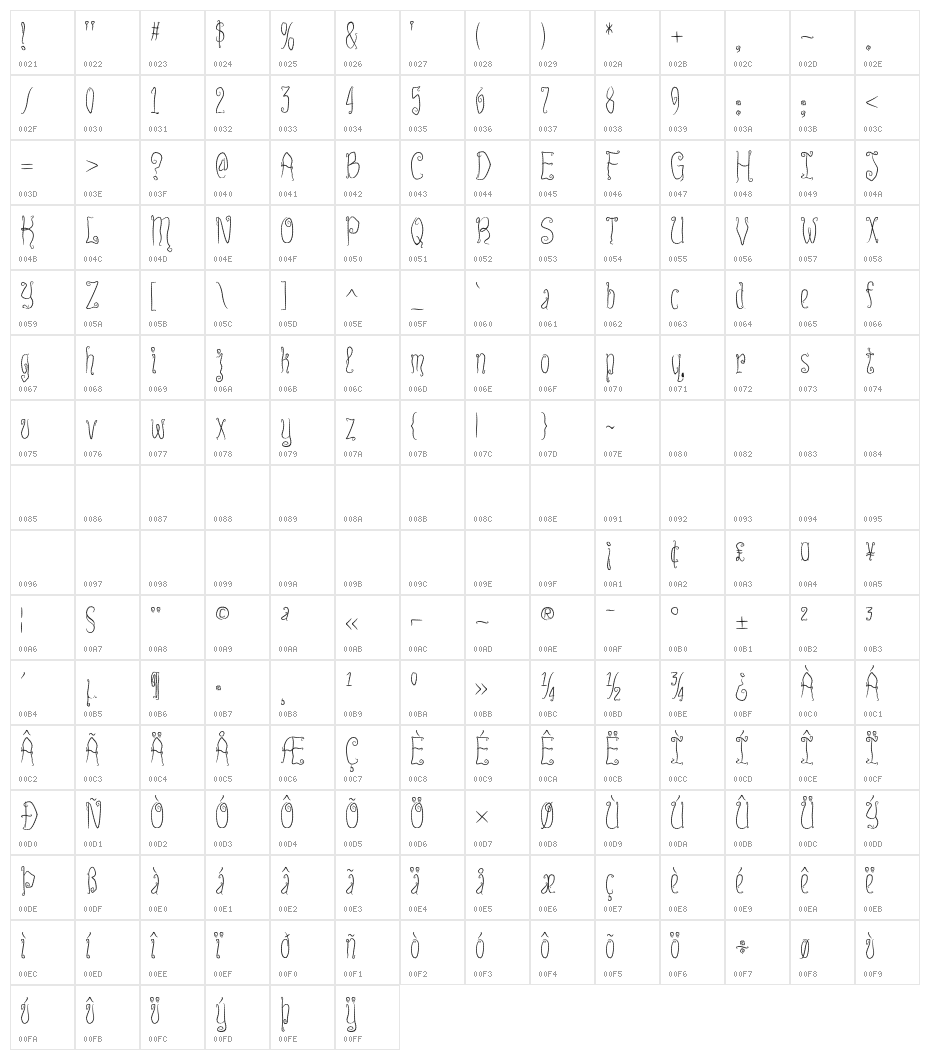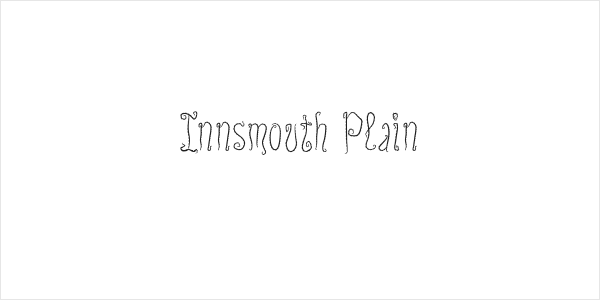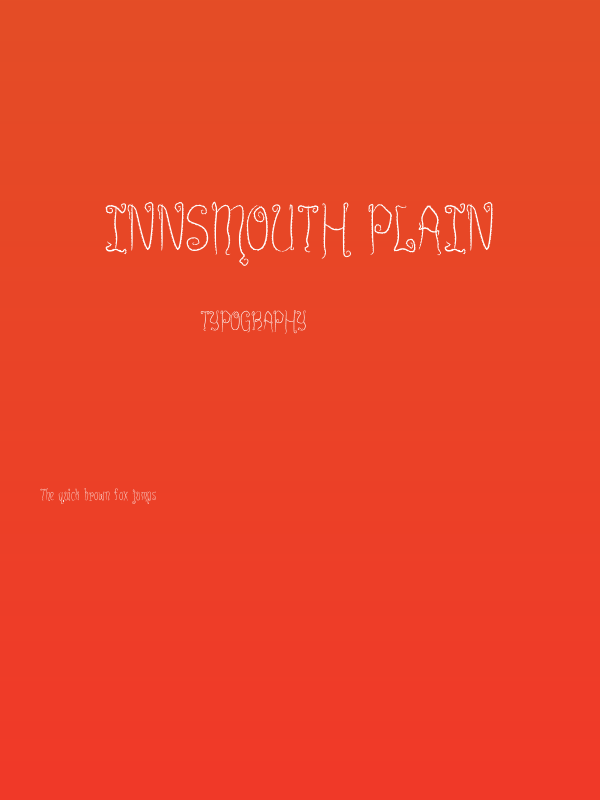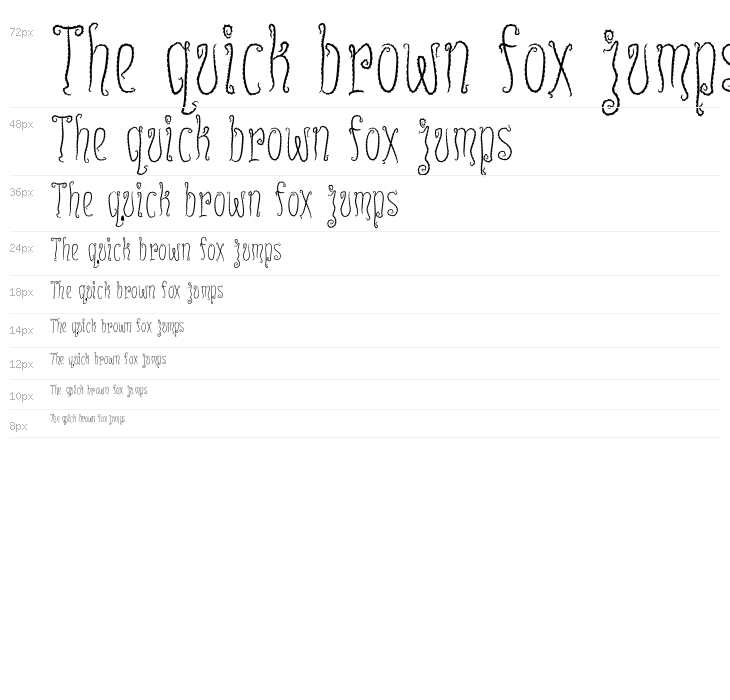
Innsmouth Plain Font
Innsmouth Plain Description
This font features an intricate and whimsical design with elongated, swirling strokes that give it a unique and artistic flair. The characters are adorned with delicate curls and loops, creating a sense of movement and fluidity. The uppercase letters are tall and narrow, while the lowercase letters maintain a consistent style with slightly more compact forms. Numbers and special characters follow the same decorative theme, making the font cohesive and visually appealing. The overall appearance is both playful and elegant, suitable for creative projects that require a touch of fantasy or artistic expression.
| Proposed Projects | Ideal for fantasy-themed designs, artistic posters, book covers, and creative branding projects. |